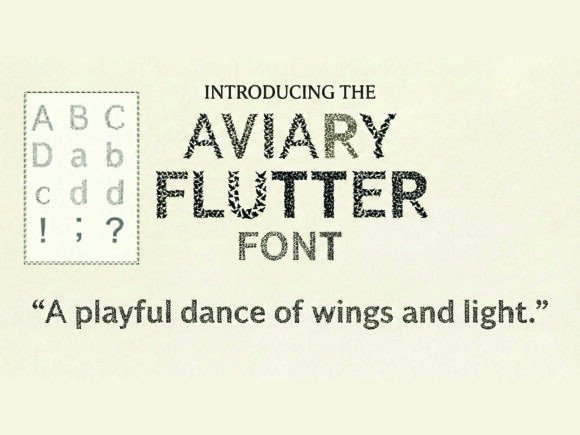
Take Your Designs to New Heights with Aviary Flutter Font
Are you tired of using the same old fonts in your designs? Do you want to add a touch of whimsy and wonder to your creative projects? Look no further than Aviary Flutter Font, a stunningly unique decorative font that will take your designs to new heights. This breathtaking, nature-inspired typography is perfect for adding a sense of freedom, movement, and ethereal beauty to your work.
A Font Like No Other
What sets Aviary Flutter Font apart from other fonts is its unique design. Every single letter is formed by a beautifully detailed flock of flying birds. The intricate details of the birds make up the characters, creating a font that is both visually striking and thought-provoking. Whether you’re a designer, crafter, or simply someone who appreciates beautiful typography, Aviary Flutter Font is sure to impress.
Perfect for Statement Pieces
Because of the intricate bird details making up the characters, Aviary Flutter Font shines brightest when used at larger text sizes. This makes it an incredible choice for statement pieces, such as headlines, titles, and signage. Imagine using this font to create a stunning logo or branding element that will set your business apart from the competition. Or, use it to add a touch of drama and elegance to your wedding invitations, party decorations, or other special occasion materials.
Aviary Flutter Font is perfect for a wide range of creative projects, including:
- Graphic design: Use Aviary Flutter Font to create stunning logos, brochures, and other marketing materials that will grab attention and leave a lasting impression.
- Crafting: Add a touch of whimsy and wonder to your handmade crafts, such as scrapbook pages, journal entries, and card making projects.
- Wedding and event planning: Use Aviary Flutter Font to create beautiful wedding invitations, party decorations, and other special occasion materials that will set the tone for a memorable event.
- Digital art: Use Aviary Flutter Font to add a touch of elegance and sophistication to your digital art projects, such as illustrations, paintings, and mixed media compositions.
Tips for Using Aviary Flutter Font
To get the most out of Aviary Flutter Font, here are a few tips to keep in mind:
- Use it at larger text sizes: As mentioned earlier, Aviary Flutter Font shines brightest when used at larger text sizes. Experiment with different sizes to find the one that works best for your project.
- Pair it with a simple font: To create visual interest and balance, pair Aviary Flutter Font with a simple font, such as a sans-serif or serif font.
- Experiment with colors: Aviary Flutter Font looks stunning in a variety of colors, from soft pastels to bold and bright hues. Experiment with different colors to find the one that works best for your project.
Aviary Flutter Font is a truly unique and breathtaking decorative font that will take your designs to new heights. With its intricate bird details and stunning natural beauty, this font is perfect for adding a touch of freedom, movement, and ethereal elegance to your creative projects. Whether you’re a designer, crafter, or simply someone who appreciates beautiful typography, Aviary Flutter Font is sure to inspire and delight. So why wait? Take your designs to the skies with Aviary Flutter Font and see where your creativity takes you!